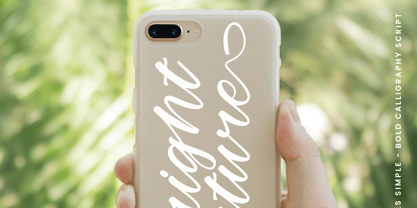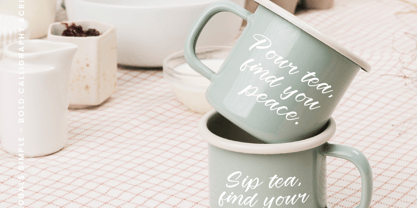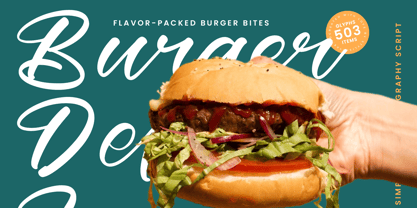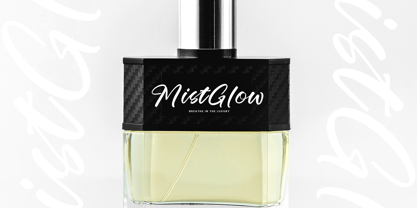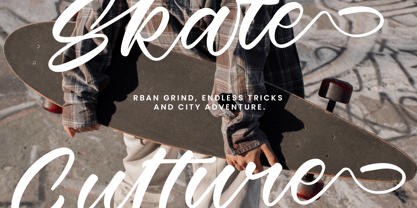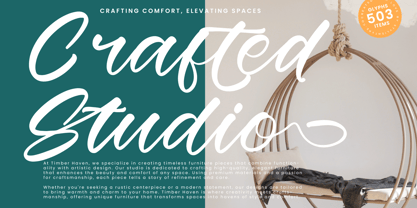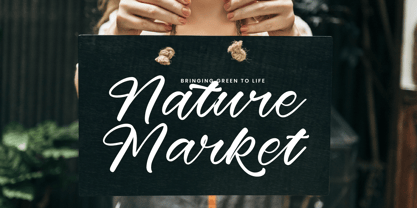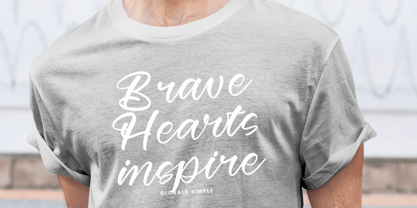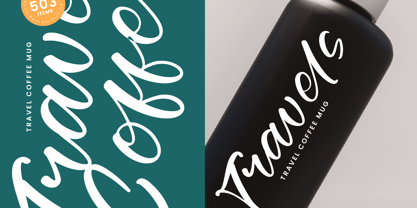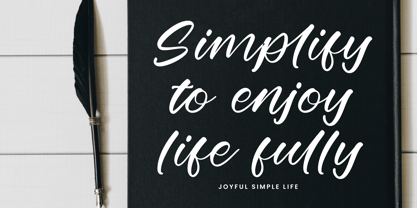
Globals Simple
by Stylishtype Studio
The Globals Simple Font Family was designed by Heru Utama Putra and published by Stylishtype Studio. Globals Simple contains 2 styles and family package options.
Globals Simple - Bold Calligraphy Script , from Stylishtype, Suitable for any projects such as: logos, branding projects, homeware designs, product packaging, mugs, quotes, posters, shopping bags, t-shirts, book covers, name card, invitation cards, greeting cards, label, photography, watermark, special events, and all your other luxury and beautiful projects that need a Luxury Script taste.